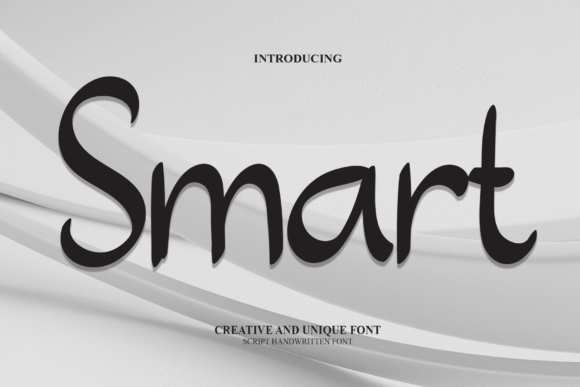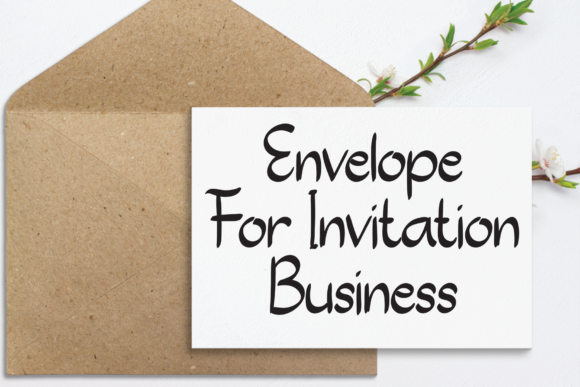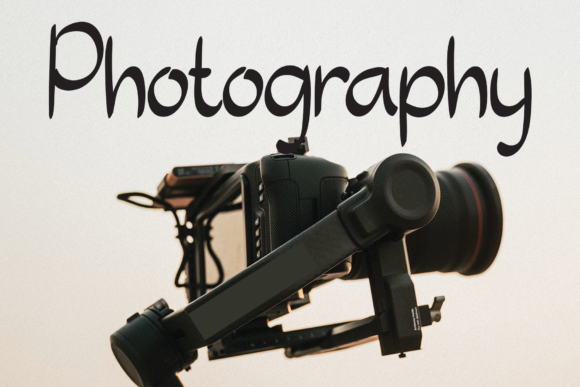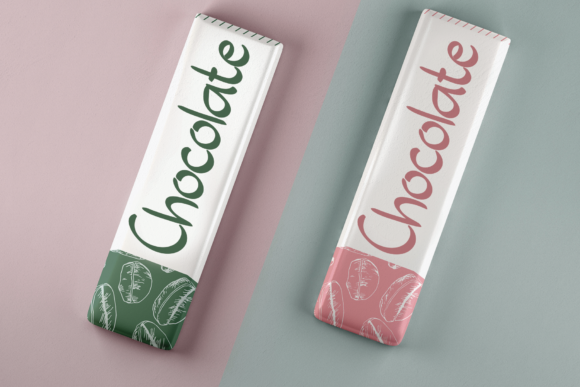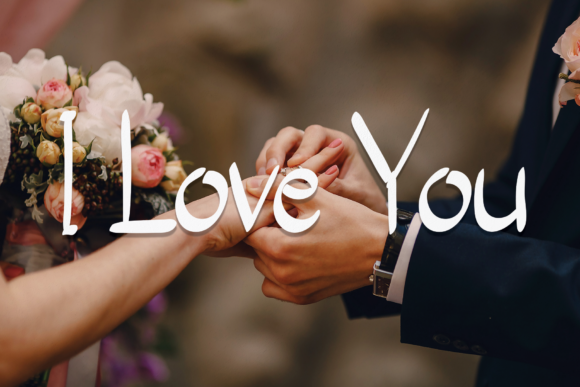
Smart Font
About Smart Font
Smart is a beautiful and neat handwritten font, perfect for making your designs stand out from the rest. The characters are perfect for wall hangings, wedding invitations, social media post logos, advertisements, product packaging, product designs, labels, photography, watermarks, invitations, stationery and any project that requires modern typography.